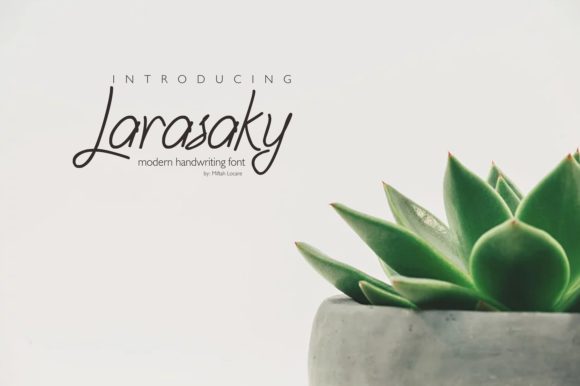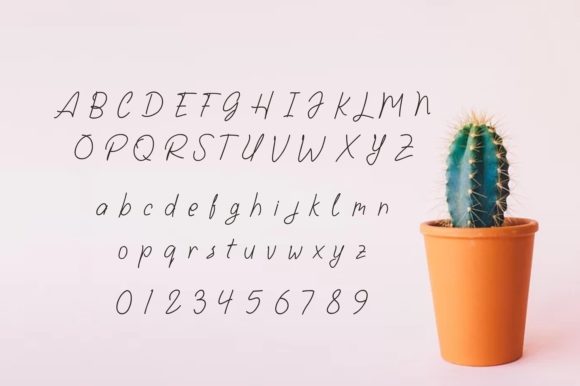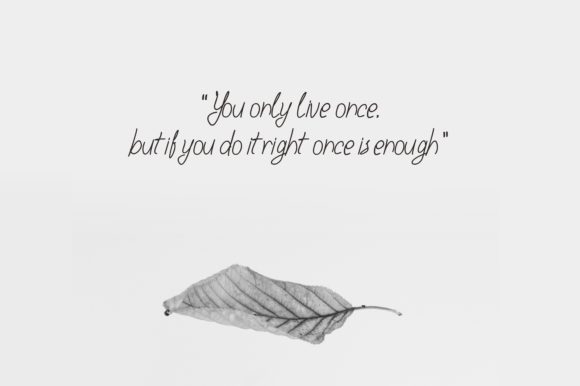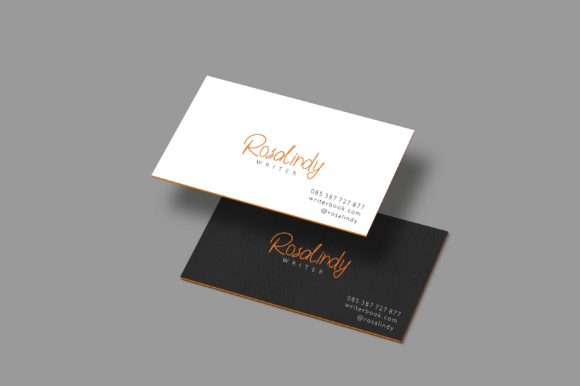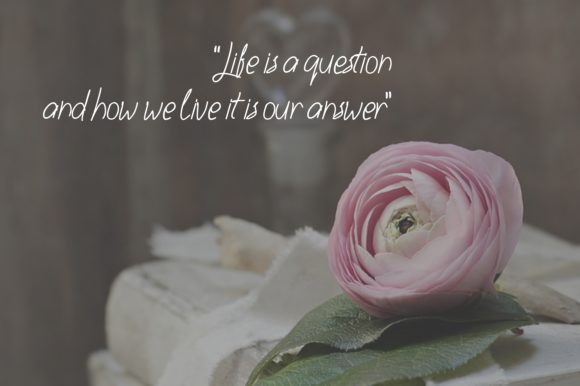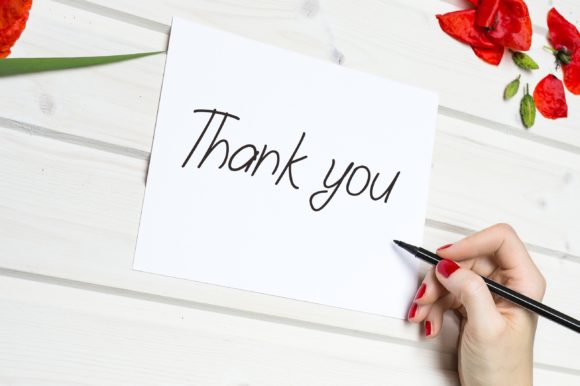
Larasaky Font
About Larasaky Font
Larasaky is a luxurious script font. It has an authentic natural feel that makes it perfect for any crafting project.